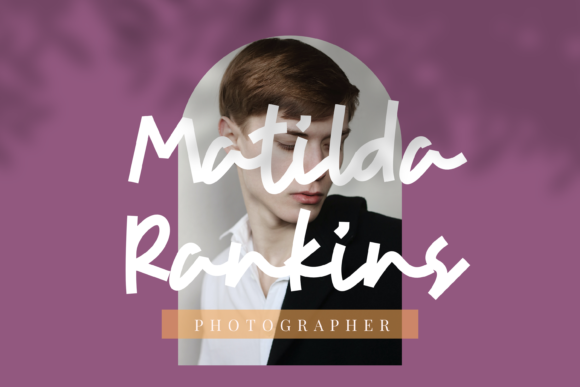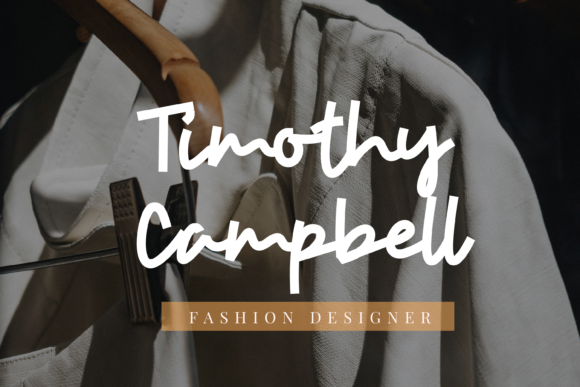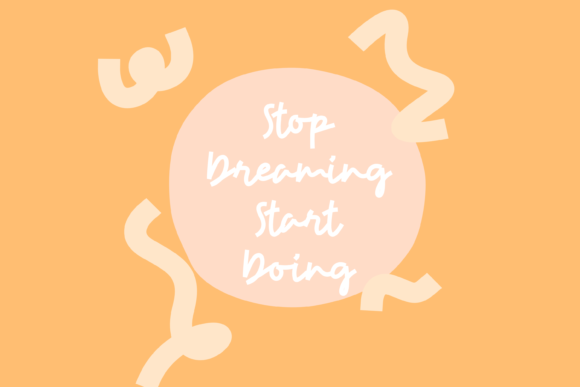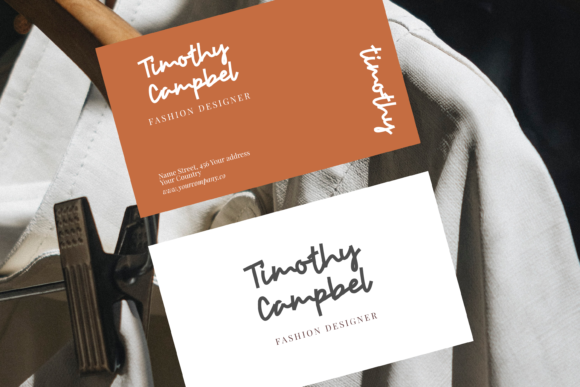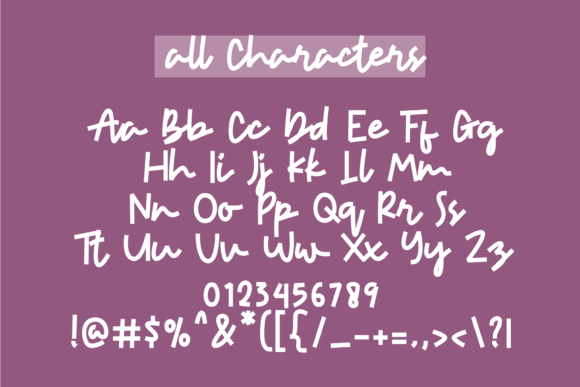
Unlock the Whimsy of Amanda Sahaera Font
Have you ever stumbled upon a beautiful handwritten font that instantly sparks your creativity? For me, it was the moment I saw Amanda Sahaera Font – its playful characters and flowy style had me hooked. I couldn’t wait to explore its endless possibilities and see how it could bring my designs to life.
Amanda Sahaera Font is a romantic handwritten font designed to add a touch of elegance and whimsy to any project. Whether you’re crafting wedding invitations, birthday cards, or magazine layouts, this font is sure to captivate your audience. Its versatility and charm make it a valuable asset for designers looking to add a personal touch to their work.
With Amanda Sahaera Font, you can create stunning watermarks, quotes, and even book covers that exude sophistication and charm. Its unique character set and flowing style make it an ideal choice for designers seeking to stand out in a crowded market.
Amanda Sahaera Font Key Features
- Font Family: Amanda Sahaera Font is a unique, hand-drawn font family.
- Font Size: Offers a range of font sizes, from 8pt to 72pt, allowing for flexibility in design applications.
- Resolution: Designed at 300 DPI for high-quality printing and digital displays.
- Unique Characteristics: Features intricate, cursive script and ornate details, making it suitable for creative and artistic projects.
- Language Support: Supports multiple languages, including Latin, Cyrillic, and Greek scripts, ensuring global compatibility.
Amanda Sahaera Font Review
I’ve had the chance to work with the Amanda Sahaera font, and I’m sharing my honest thoughts on its strengths and weaknesses.
- Unique Character Set: Amanda Sahaera offers a wide range of characters that make it perfect for creative projects.
- High-Quality Lines: The font features smooth, high-quality lines that make it easy on the eyes.
- Good Legibility: Amanda Sahaera is highly legible, making it suitable for body text and headings.
- Limited Font Sizes: Amanda Sahaera is best suited for text sizes between 12-24 points. Using it at smaller or larger sizes can affect readability.
- May Not Suit Formal Text: While Amanda Sahaera is great for creative projects, it may not be the best choice for formal documents or texts requiring a more professional tone.
Amanda Sahaera is a great choice for designers and artists looking for a unique, high-quality font. Its wide character set, smooth lines, and good legibility make it perfect for creative projects. However, it’s essential to be mindful of its limitations, especially when it comes to font sizes and formal text. With proper usage, Amanda Sahaera can elevate your designs and add a touch of elegance.
Tips for Getting the Most Out of Amanda Sahaera Font
Use Amanda Sahaera Font for headings and titles to add a touch of elegance and sophistication to your designs.
Experiment with different font sizes and colors to create a visually appealing contrast.
Combine Amanda Sahaera Font with other fonts to create a unique and interesting typography.
Amanda Sahaera Font is perfect for:
Corporate branding and marketing materials
The recommended font size for Amanda Sahaera is between 10pt and 14pt, with a line height of 1.2 to 1.5 times the font size. This will provide optimal readability and balance between text and typography.
Is Amanda Sahaera suitable for both digital and print use?
Amanda Sahaera is designed to be versatile and suitable for both digital and print use. It is optimized for on-screen reading and printing at various resolutions and sizes. However, it’s essential to test the font in different environments to ensure the best results.